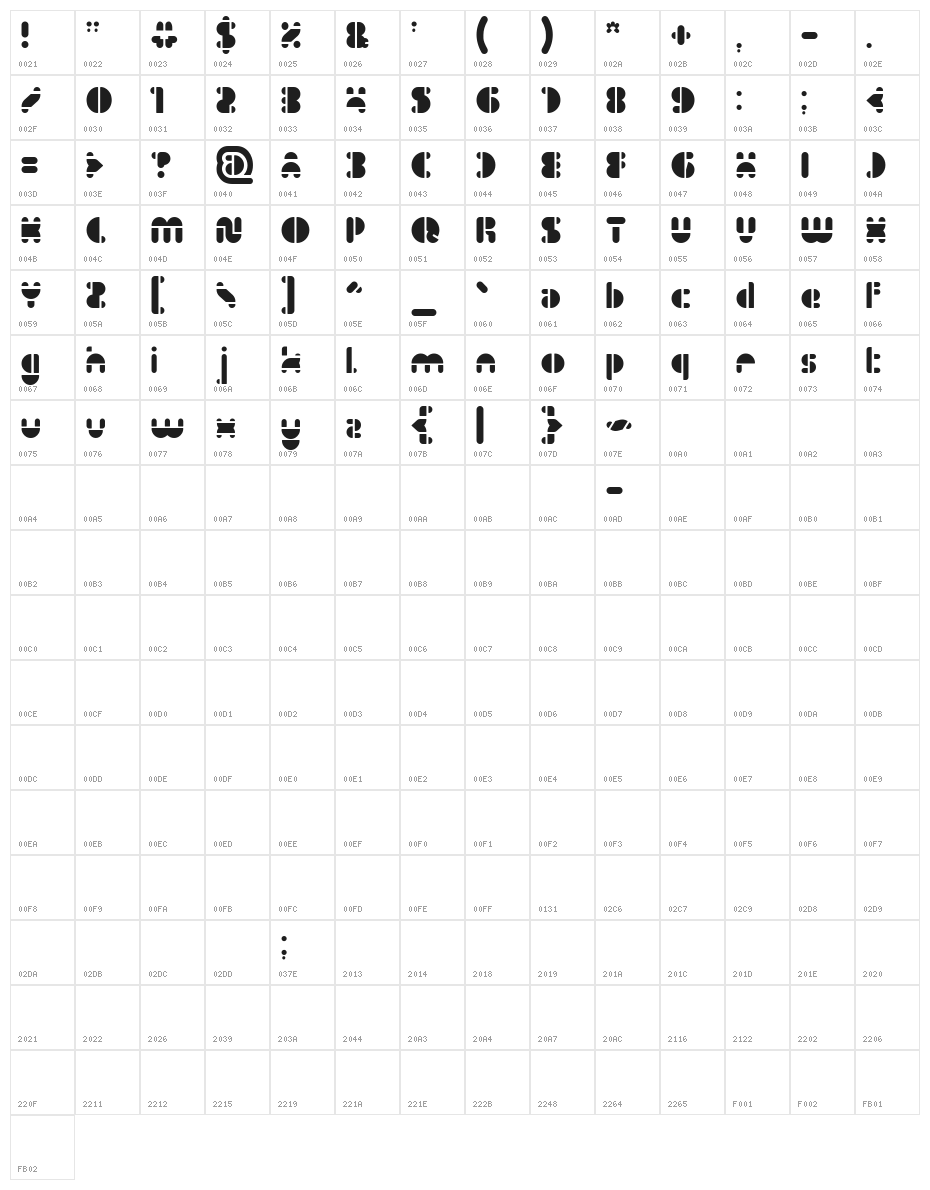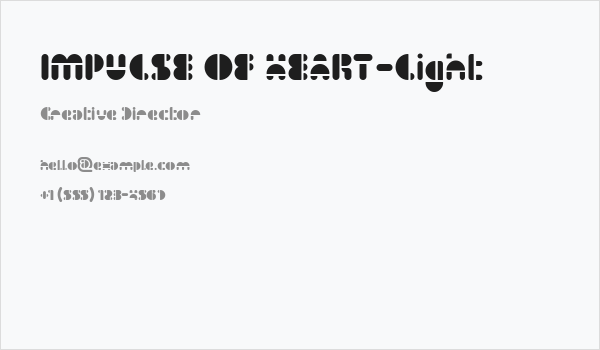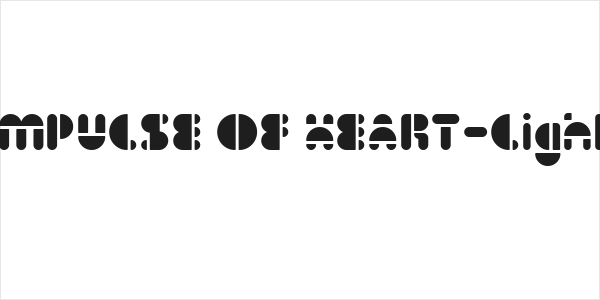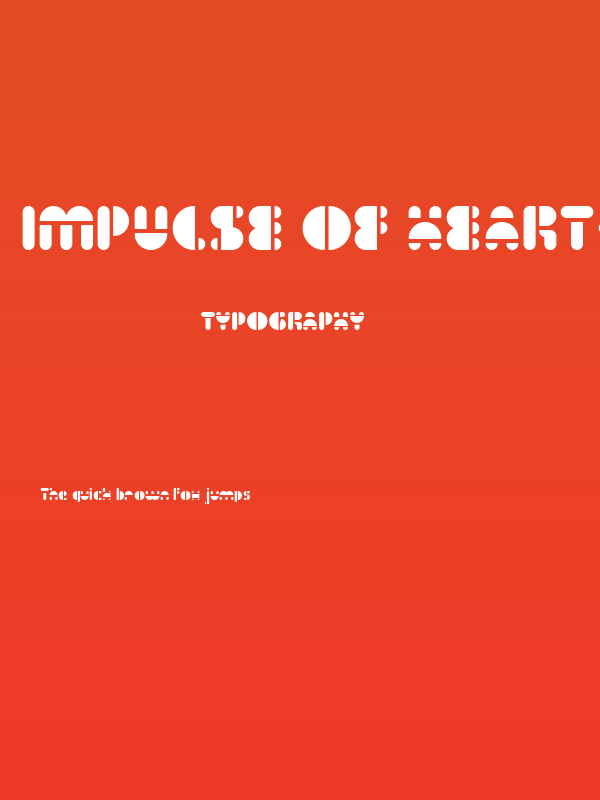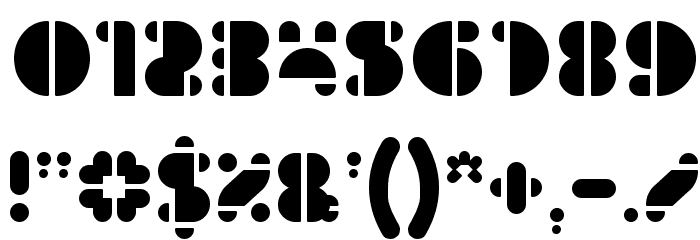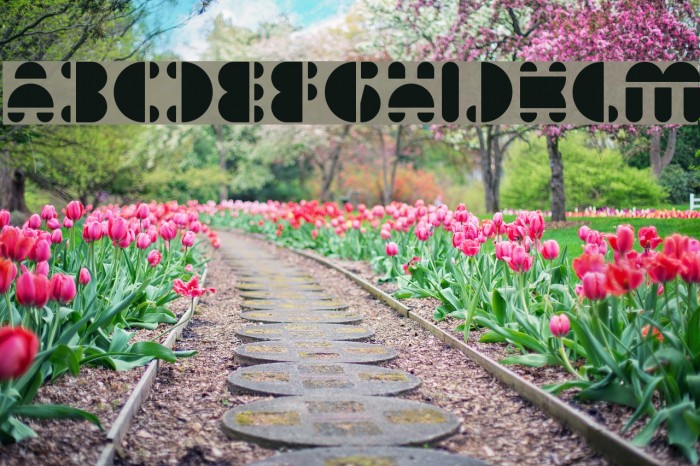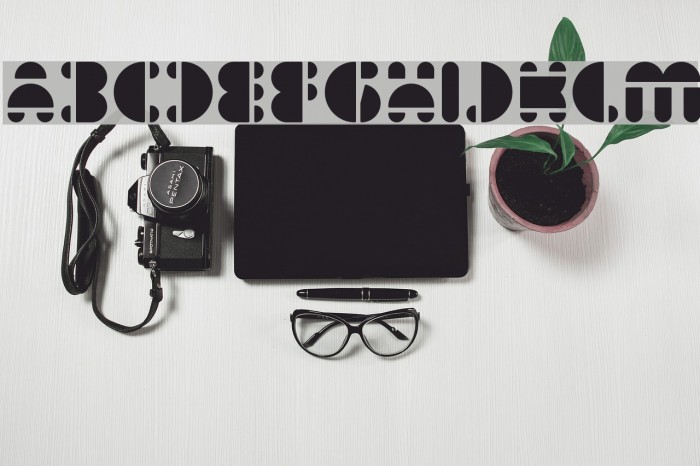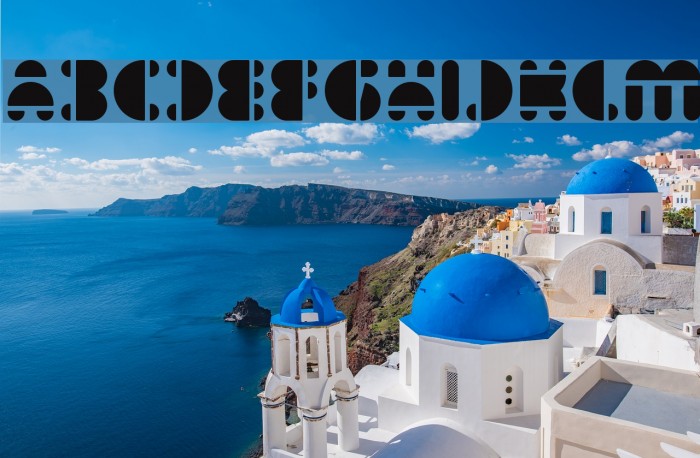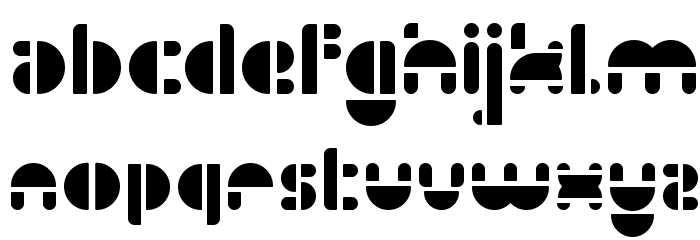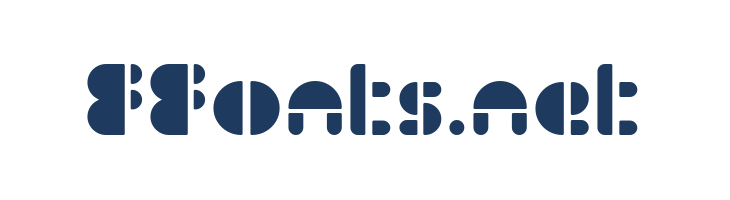
IMPULSE OF HEART-Light Font
This font features a bold and geometric design with a distinct stencil-like appearance. Each character is composed of solid, rounded shapes with strategic cutouts, giving it a modern and industrial feel. The uppercase and lowercase letters maintain a consistent style, with the lowercase being slightly more compact. Numbers and special characters follow the same design principles, ensuring uniformity across all glyphs. The font's unique style makes it stand out, ideal for projects that require a strong visual impact.